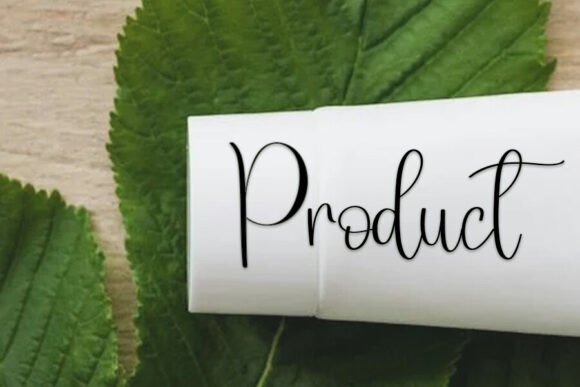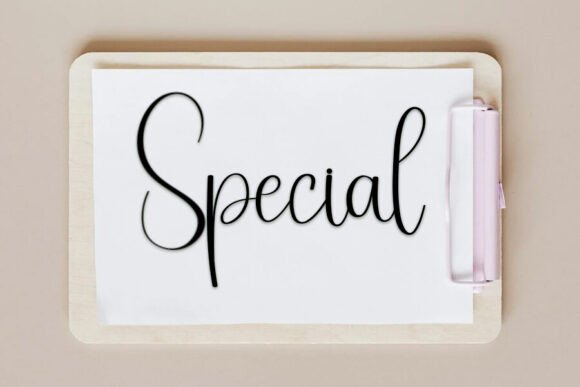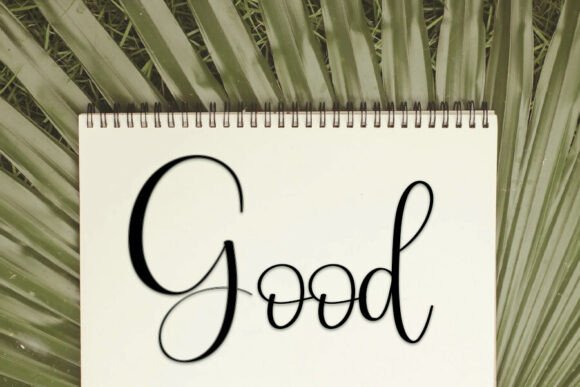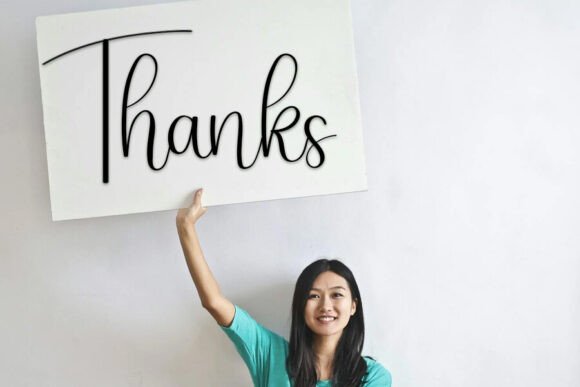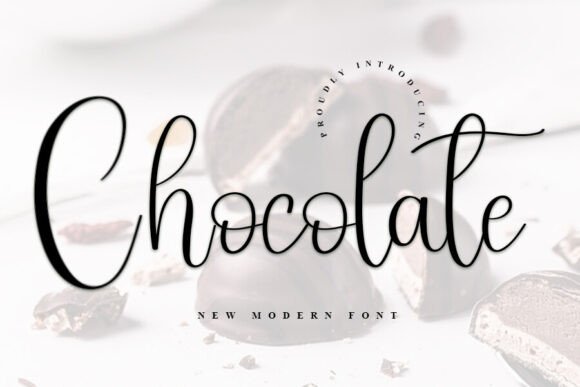
Introducing Chocolate Font: Elevate Your Designs with a Touch of Elegance
In the world of design, typography plays a crucial role in capturing the essence of a message. A font can make or break the visual appeal of a project, and that’s where the Chocolate font comes in – a game-changing, inspired, and lustrous font designed to transform your creative world. With its eye-catching design and versatility, Chocolate is the perfect pick for a wide range of applications, from vibrant YouTube banners to professional ID cards, and from enticing wedding invitations to intricate craft projects.
The Simplicity and Uniqueness of Chocolate Font
What sets Chocolate apart is its perfect blend of simplicity and uniqueness. In a sea of fonts that may seem dull or overly complex, Chocolate strikes a balance that makes it both easy to read and visually appealing. Its design is imbued with an artful elegance that can elevate any design-driven business, propelling it towards growth and success. Whether you’re a professional designer or a crafter, Chocolate provides the tools you need to create stunning typography that stands out.
Applications of Chocolate Font
The versatility of the Chocolate font is one of its most compelling features. Here are some of the many ways you can use Chocolate to enhance your designs:
- YouTube Banners: Make your YouTube channel stand out with a vibrant and engaging banner that captures the essence of your content. Chocolate font, with its bold and lustrous design, is sure to attract viewers and set the tone for your channel.
- Wedding Invitations: Add a touch of elegance and sophistication to your wedding invitations. Chocolate font brings a sense of luxury and celebration, making your invitations truly unforgettable.
- Professional ID Cards: Create ID cards that are not only informative but also visually appealing. The Chocolate font adds a professional touch that can enhance the credibility and appeal of the ID cards.
- Flyer Layouts: Whether you’re advertising an event, a product, or a service, flyers are an effective way to grab attention. With Chocolate font, you can create impactful flyer layouts that stand out in a crowd.
- Craft Projects: For crafters, Chocolate font offers endless possibilities. From handmade cards to DIY decor, this font can add a personalized and artistic touch to your projects.
Why Choose Chocolate Font?
With so many fonts available, why choose Chocolate? The answer lies in its ability to seamlessly blend into various design contexts while maintaining its unique charm. Here are a few reasons why Chocolate font should be your go-to choice:
- Elegance: Chocolate brings an unmatched level of elegance to your designs, making them more engaging and sophisticated.
- Versatility: Its versatility means you can use it across different platforms and projects, from digital designs to print materials.
- Readability: Despite its stylized appearance, Chocolate font remains highly readable, ensuring your message is conveyed clearly.
- Uniqueness: In a world of generic fonts, Chocolate offers a fresh and distinctive look that can set your designs apart.
Step into the world of stunning typography with the Chocolate font and let it elevate your design endeavors. Whether you’re a seasoned designer or a hobbyist crafter, Chocolate offers the perfect blend of style, elegance, and versatility. Say goodbye to dull and generic designs, and hello to a world where every project stands out with the luxurious touch of Chocolate. So why wait? Dive into the creative possibilities with Chocolate font today and transform your designs into captivating works of art.